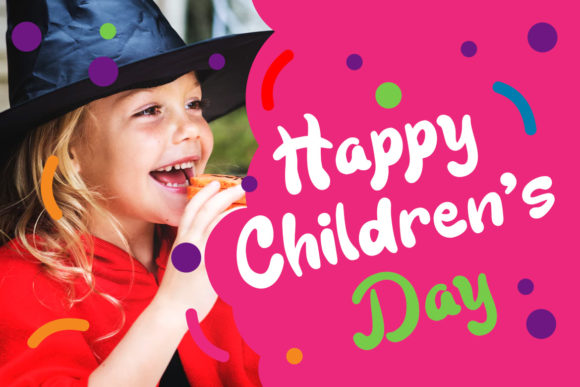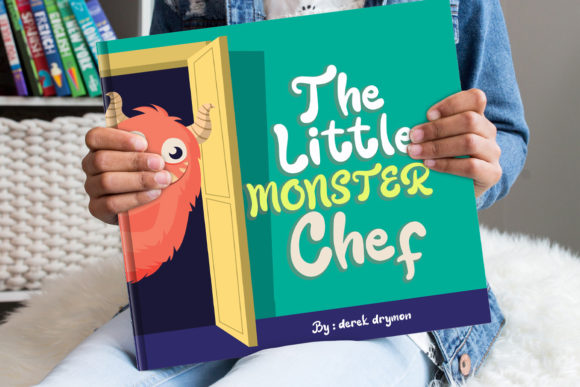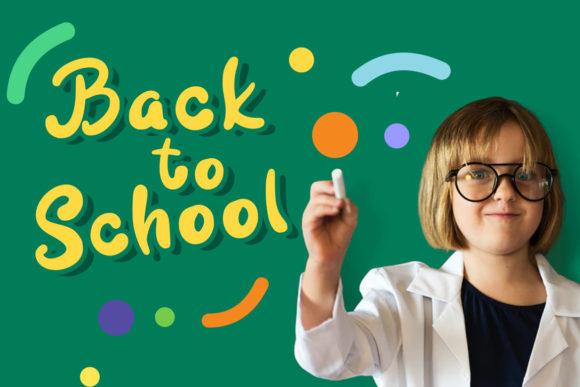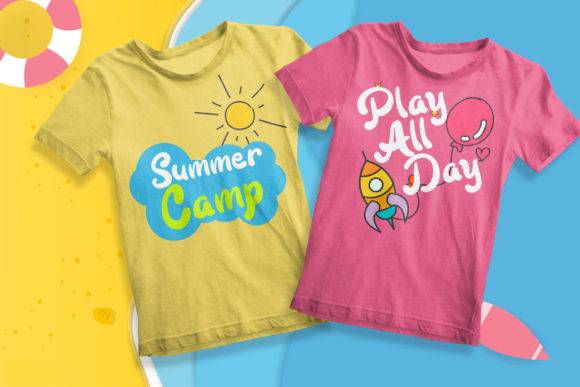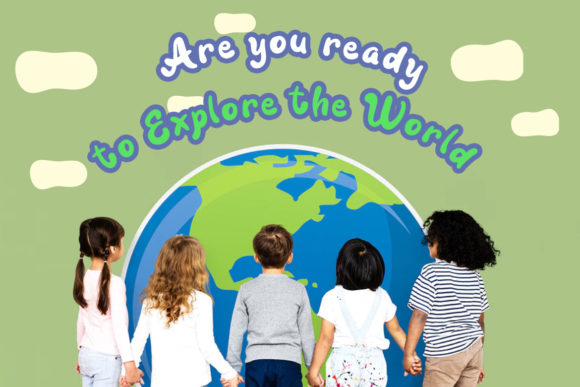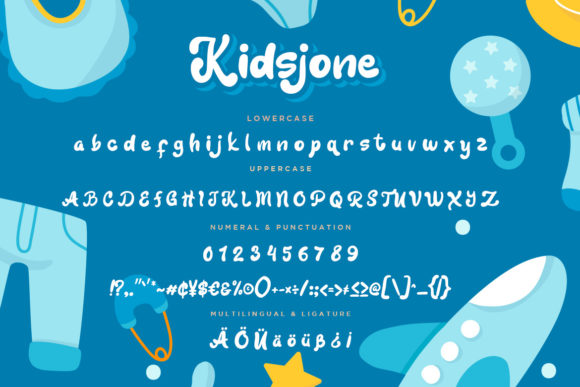
Introduction to Kidsjone Font
Kidsjone is a cool and fun display font with a slightly retro charm.
It’s the ideal typeface for any school or kids project .
Key Features of Kidsjone Font
Why Choose Kidsjone Font?
Kidsjone Font offers exceptional quality and versatility, making it a valuable addition to your design toolkit. Whether you’re creating for personal projects or commercial use, Kidsjone Font delivers professional results.